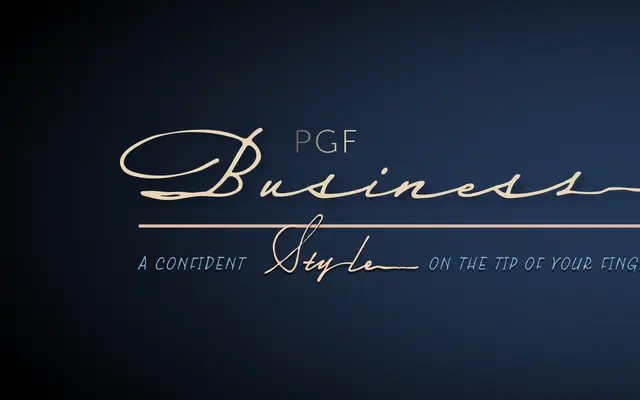
PGF-Business
A Spencerian-inspired script family organised into five stylistic variants, a comprehensive full file, and supplementary ornament and dingbat sets.
Drawn from the tradition of Spencerian penmanship and confident signature lettering, PGF-Business is split into five individual style files for ease of use, with a more feature-dense 'Full' variant intended for users comfortable with advanced OpenType editing. The family ships with an extensive set of stylistic sets, ligatures, swashes and figure styles, alongside separate Ornaments and Dingbats fonts for typographic decoration.
Explicitly modelled on Spencerian penmanship, historically known as 'Business Script', with confident signature-style strokes. Categorised as script due to its calligraphic, cursive nature.